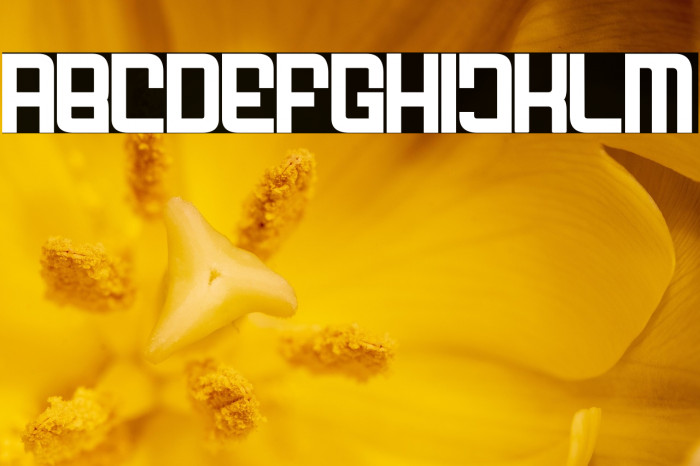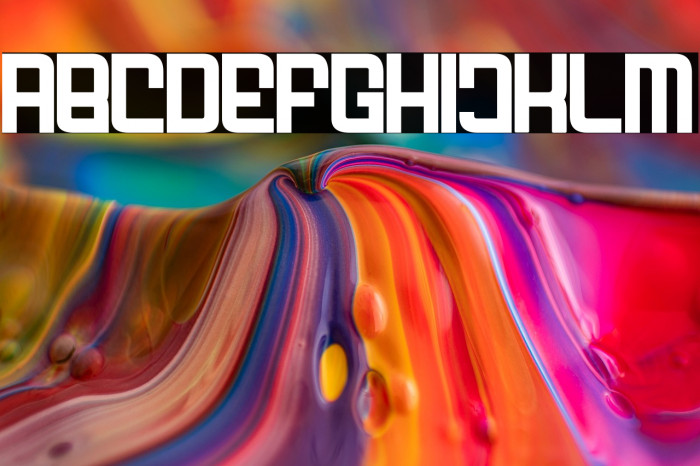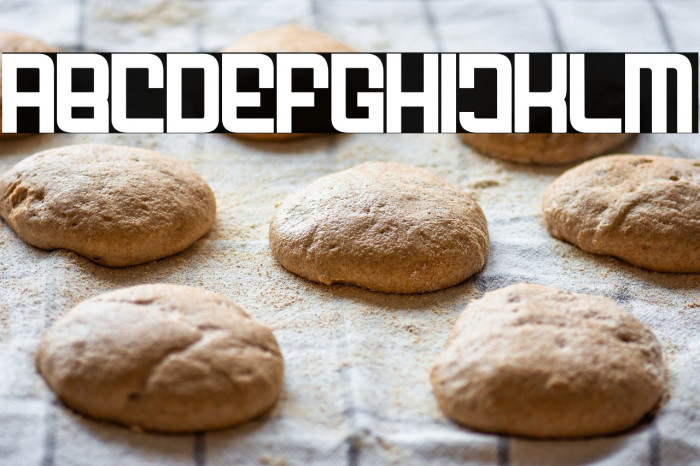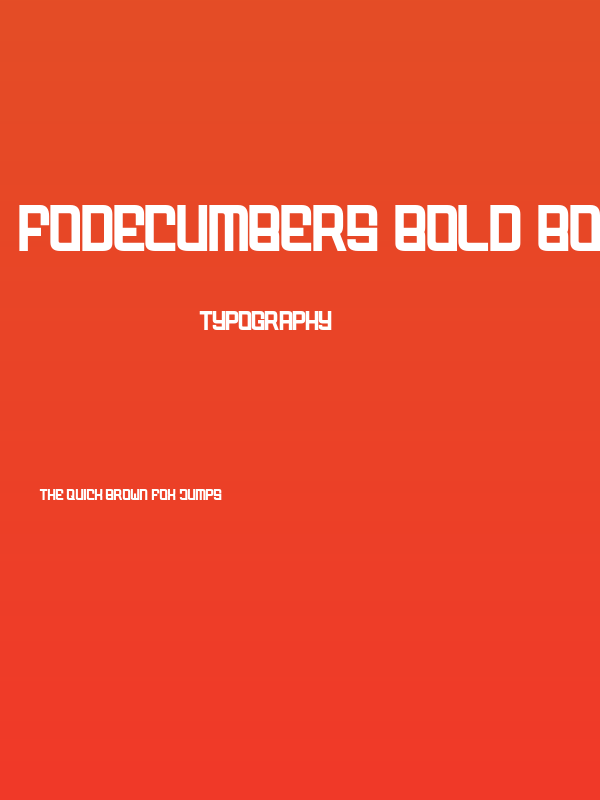
FODECUMBERS BOLD Bold Font
FODECUMBERS BOLD Bold Description
This font features a bold and geometric design with a strong presence. The characters are constructed with thick, uniform strokes, creating a sense of stability and strength. The uppercase letters have a squared-off appearance, while the lowercase letters maintain a consistent height and width, enhancing readability. The numerals are equally bold, ensuring visibility in various contexts. Special characters are designed with the same boldness, making them suitable for impactful statements. The overall style is modern and assertive, ideal for projects requiring a strong visual impact.